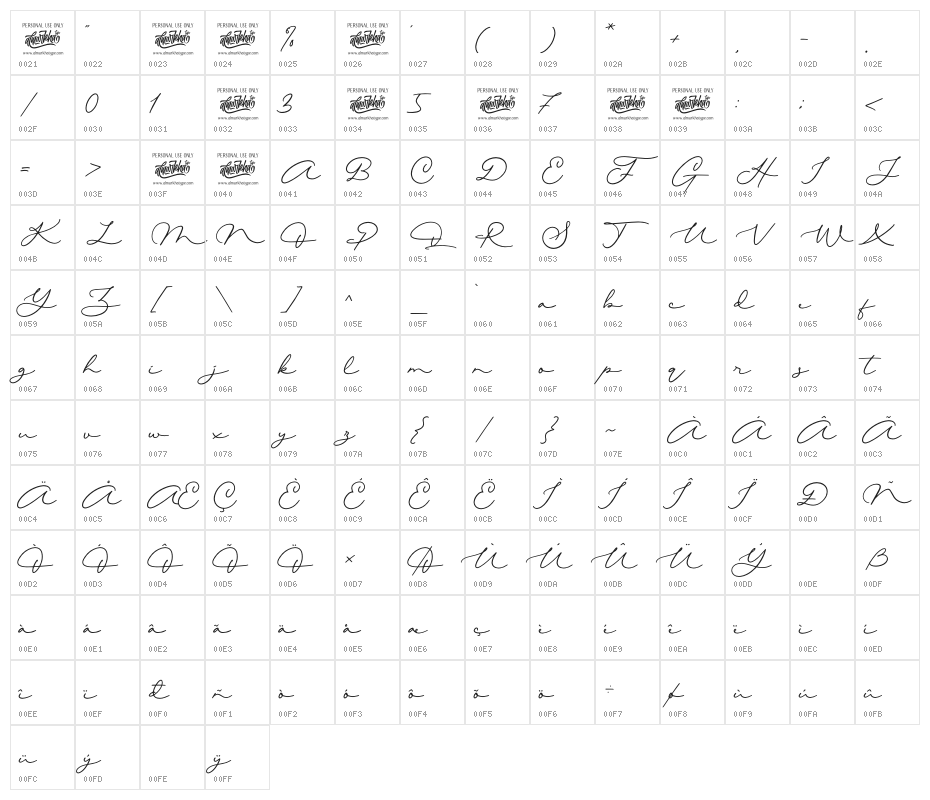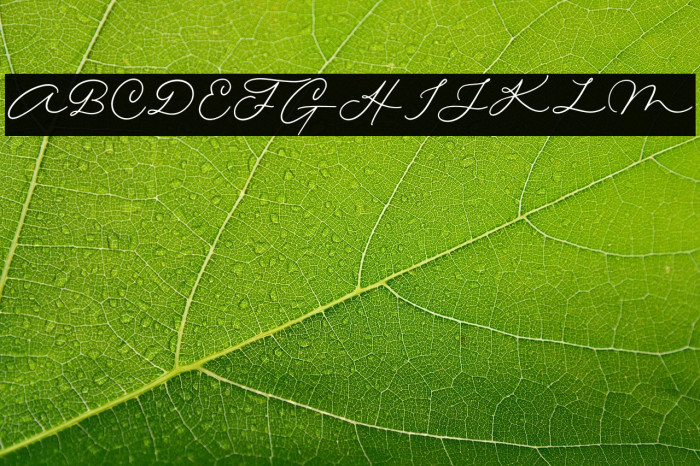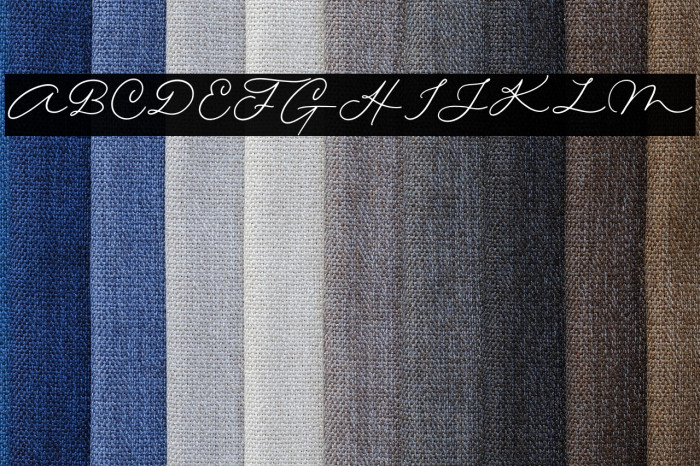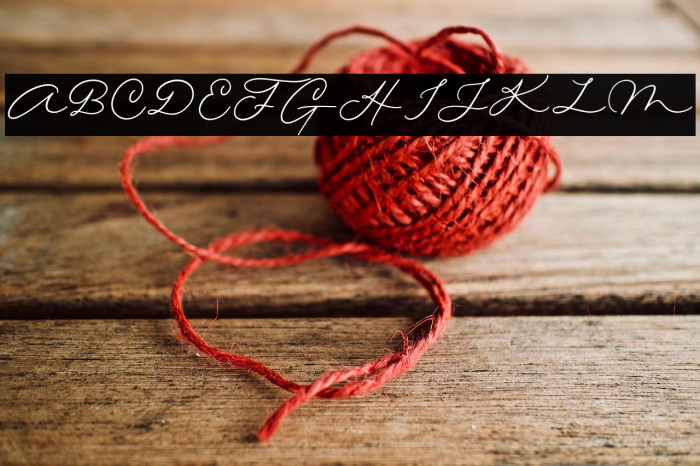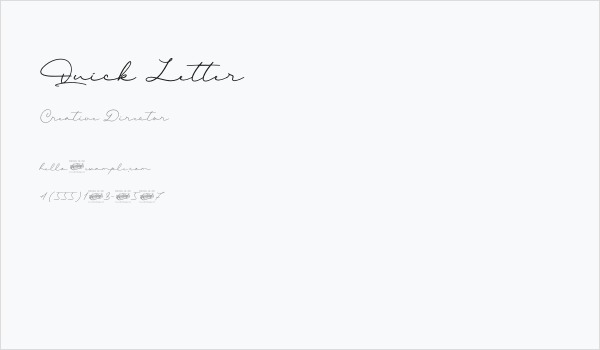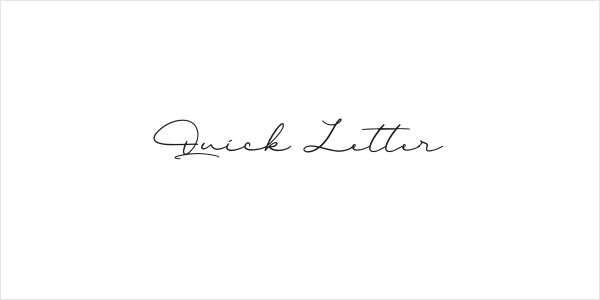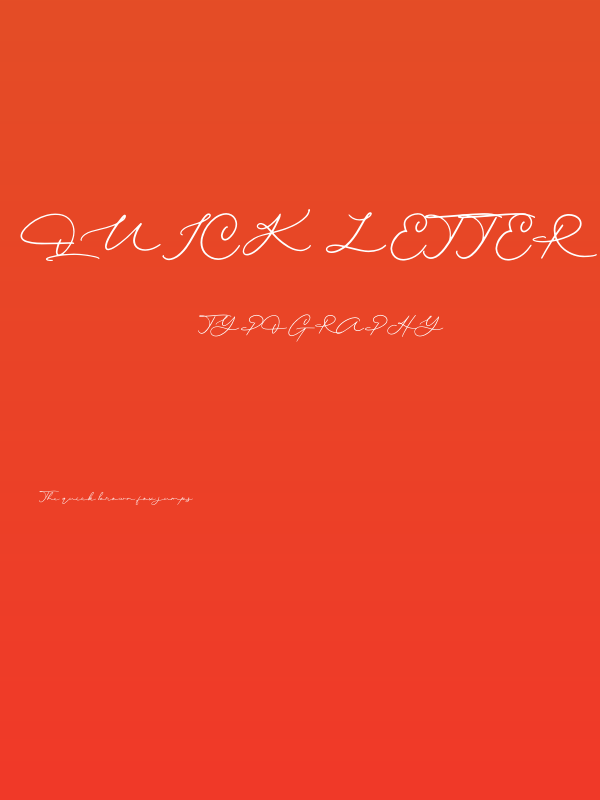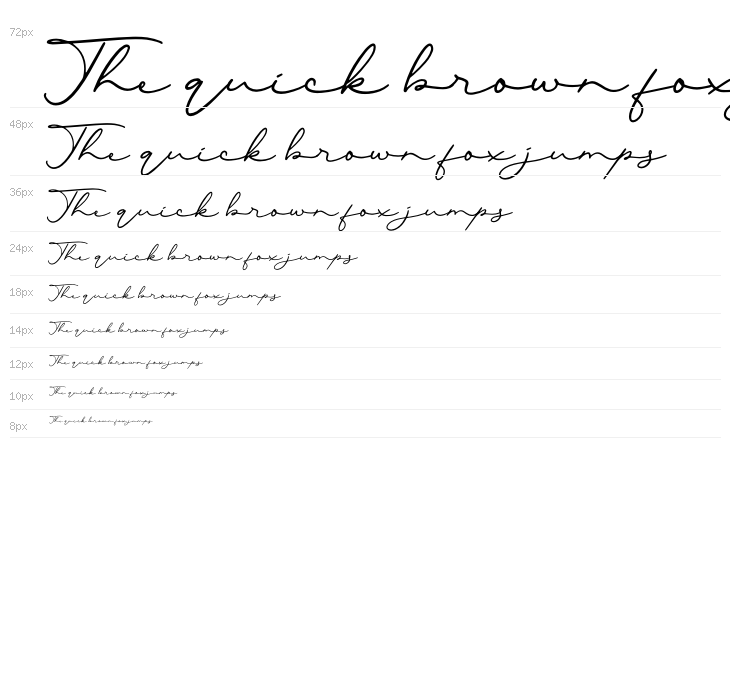
Quick Letter Font
Quick Letter Description
This font features a flowing, cursive style that mimics elegant handwriting. The letters are connected, creating a seamless and fluid appearance. The uppercase letters are slightly more ornate, with loops and flourishes that add a touch of sophistication. The lowercase letters maintain a consistent flow, enhancing readability while preserving the script's decorative nature. The numerals and special characters are designed to match the overall aesthetic, ensuring a cohesive look across all text elements. This font is ideal for projects that require a personal, handwritten touch.
| Overall Style | Elegant, Decorative |
| Use Case | Logos, Invitations, Personal Correspondence |
| Proposed Projects | Ideal for wedding invitations, greeting cards, personal branding, and elegant stationery. |